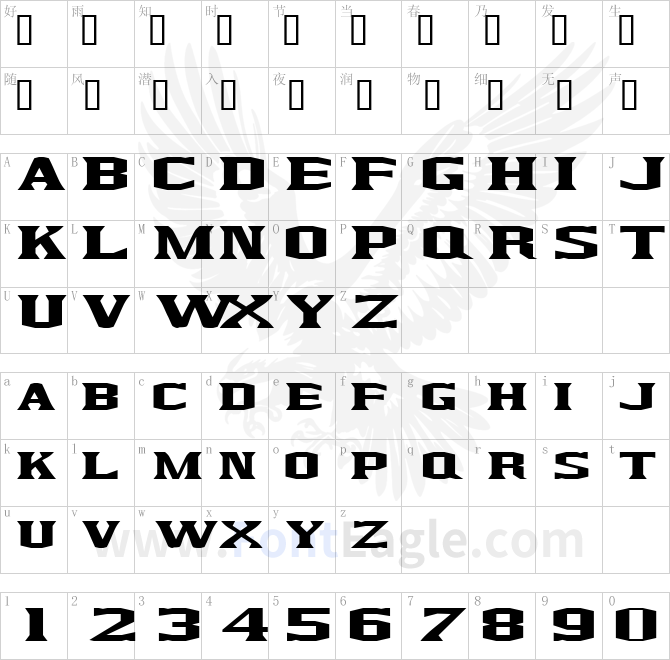
- Font name:KingfreshCondensed
- Font Full Name:KingfreshCondensed
KingfreshCondensed is a great font, widely used in graphic design, single-page menu design, poster design and other fields, and is deeply loved by designers.KingfreshCondensed download.